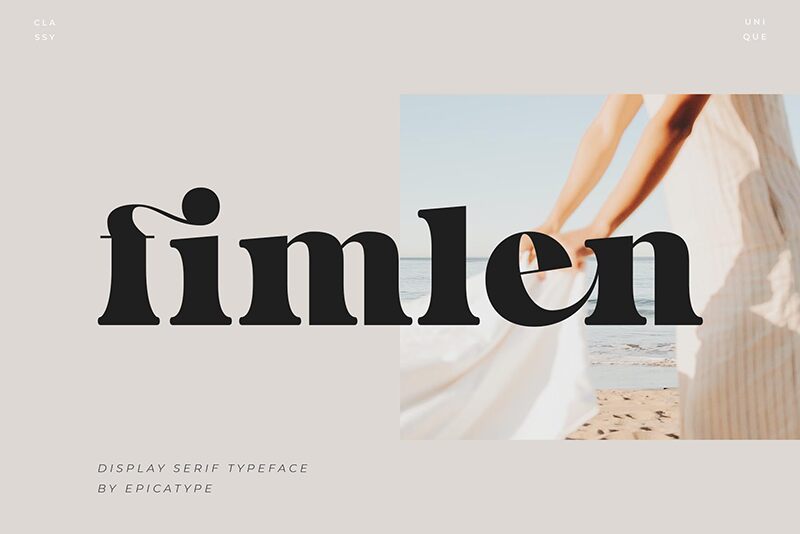
Introducing Fimlen, a bold retro serif display font designed by Epicatype. Perfect for adding a classic touch to your projects, Fimlen is ideal for logos, posters and book covers!